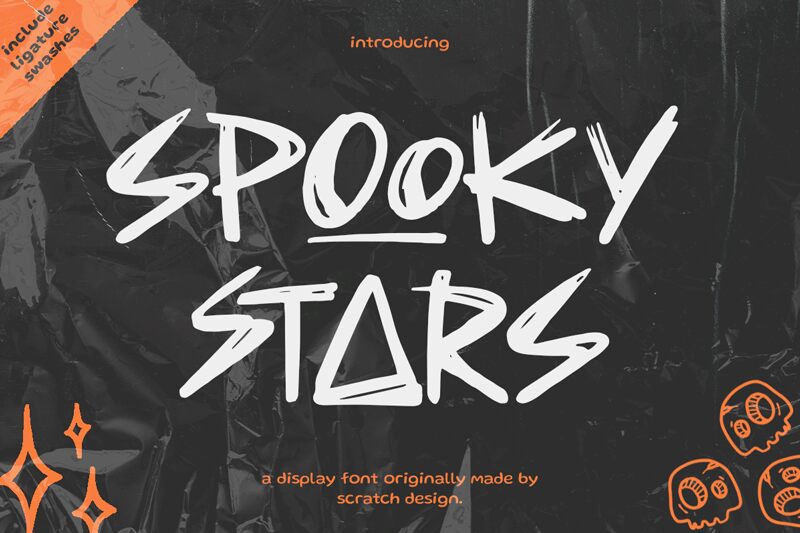
Spooky Stars, a captivating script font by Scratch Design, adds a touch of eerie charm to your projects.
With its trash style and semi-expanded width, it's perfect for creating spooky invitations to haunted house parties or designing Halloween-themed posters. Its playful yet sinister vibe makes it ideal for crafting spine-chilling greeting cards or adding an unsettling twist to book covers.
Allow Spooky Stars to cast its enchanting spell on your designs and bewitch your audience with its unique and hauntingly beautiful letterforms.